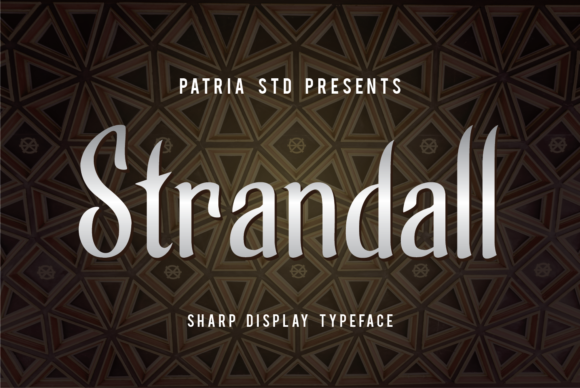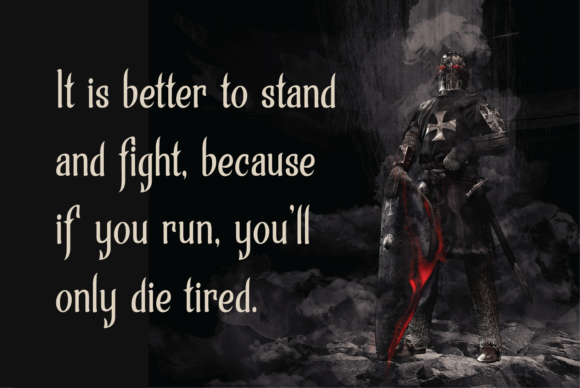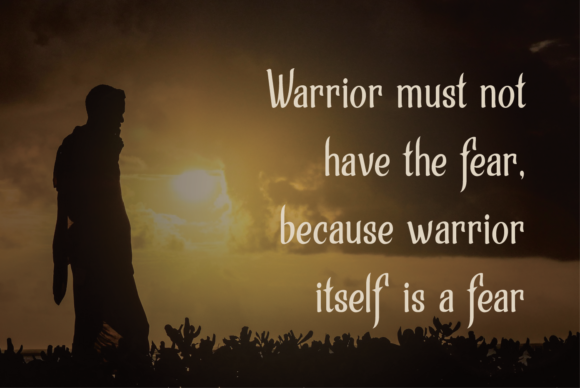
Strandall Font
Strandall is a simple and casual display font with an undeniably clean feel. This typeface font will look truly outstanding in a wide range of contexts.